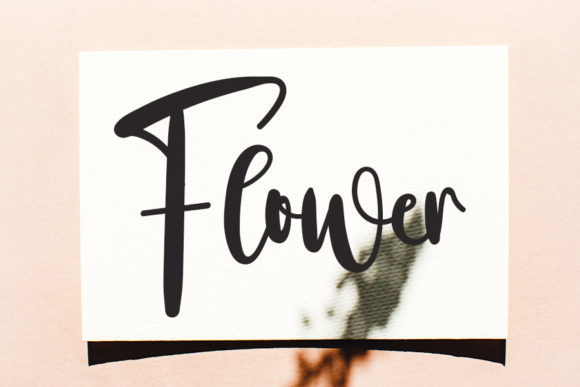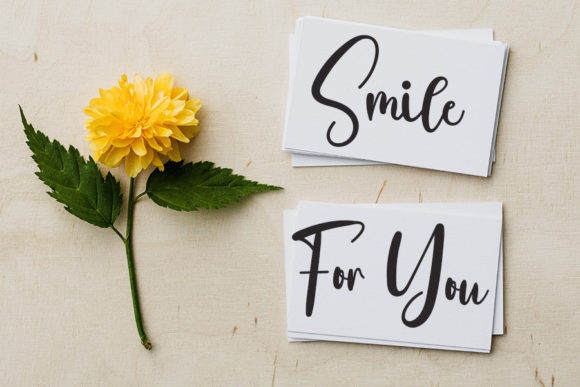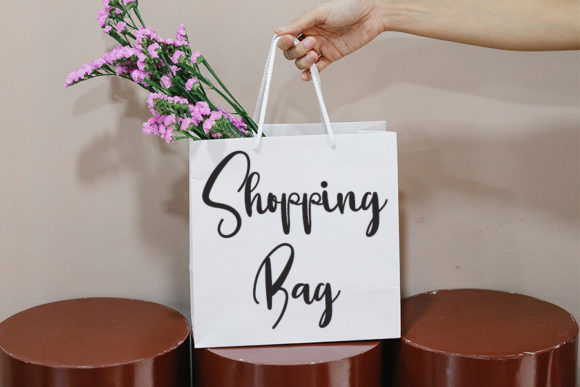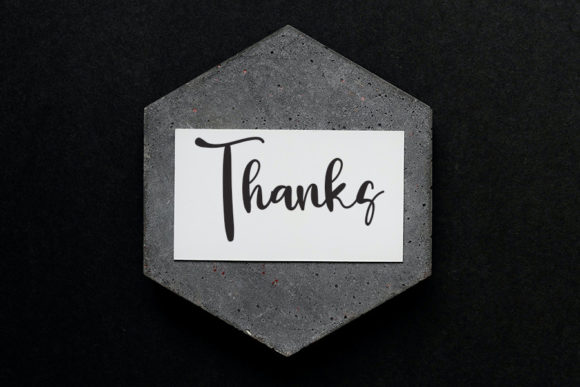
Introduction to Pinkylate Font
Have you ever stared at a blank page, feeling like your creative spark is missing that special something? We’ve all been there – the blank canvas, the empty notebook, the cursor blinking on our screens, waiting for inspiration to strike. But what if we told you there’s a way to unlock your creativity and bring your ideas to life? Enter the Pinkylate Font, a chic and trendy handwritten font that’s about to become your new go-to design resource.
Whether you’re a seasoned designer or a DIY enthusiast, the Pinkylate Font is a high-quality design tool that’s sure to elevate your creative project. From Instagram-worthy posts to calligraphy scripts, this font is the perfect way to add a touch of elegance and sophistication to any design. And the best part? It’s available for free download, so you can start creating right away.
With its transparent background and versatile style, the Pinkylate Font is a valuable addition to any designer’s toolkit. Say goodbye to bland designs and hello to a world of creative possibilities – with the Pinkylate Font, the only limit is your imagination.
Key Features of Pinkylate Font
- High-quality, creative design resource perfect for various projects
- Transparent background allows for seamless integration with any design
- Unique, stylish design elements suitable for a wide range of creative projects
Honest Review: Pinkylate Font
I recently stumbled upon the Pinkylate Font, and I’m excited to share my thoughts on this creative project. At first glance, the font’s playful and cursive design caught my eye. The Pinkylate Font offers a free download, making it an attractive option for designers on a budget.
- High-quality design that’s perfect for a wide range of creative projects.
- Transparent background, making it easy to layer with other design elements.
- ⚠️ Limited character set, which may not be suitable for long-form text.
Overall, I’m impressed with the Pinkylate Font’s potential. Its unique design and high-quality feel make it an excellent addition to any design project. While it has some limitations, it’s still a valuable design resource that’s worth checking out.
Tips for Getting the Most Out of Pinkylate Font
For the best results, use the Pinkylate Font on a transparent background to create a clean and minimalist design. You can also experiment with different font sizes and styles to create a unique and creative look. Additionally, consider combining the Pinkylate Font with other design elements, such as graphics and images, to add depth and interest to your design project.
The Pinkylate Font is a versatile design resource that can be used for a variety of creative projects, including branding, marketing materials, and digital products. It’s also a great choice for creating invitations, posters, and other print materials. With its high-quality design and transparent background, the Pinkylate Font is a free download that’s perfect for designers and non-designers alike.
Q: Can I customize the Pinkylate Font to fit my specific design needs?
While the Pinkylate Font is a high-quality design resource, it’s not a fully customizable font. However, you can use font editing software to make minor adjustments, such as font size and color. For more extensive customizations, consider using a font editing tool or hiring a professional font designer.